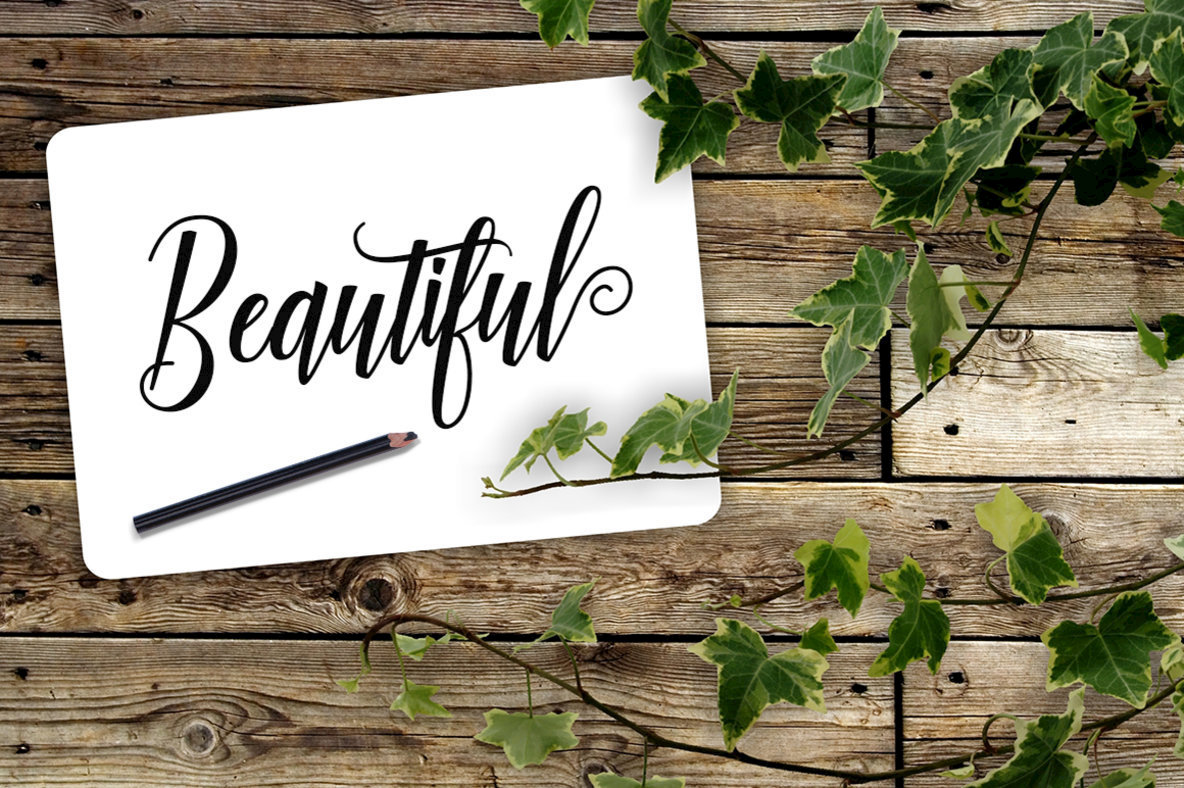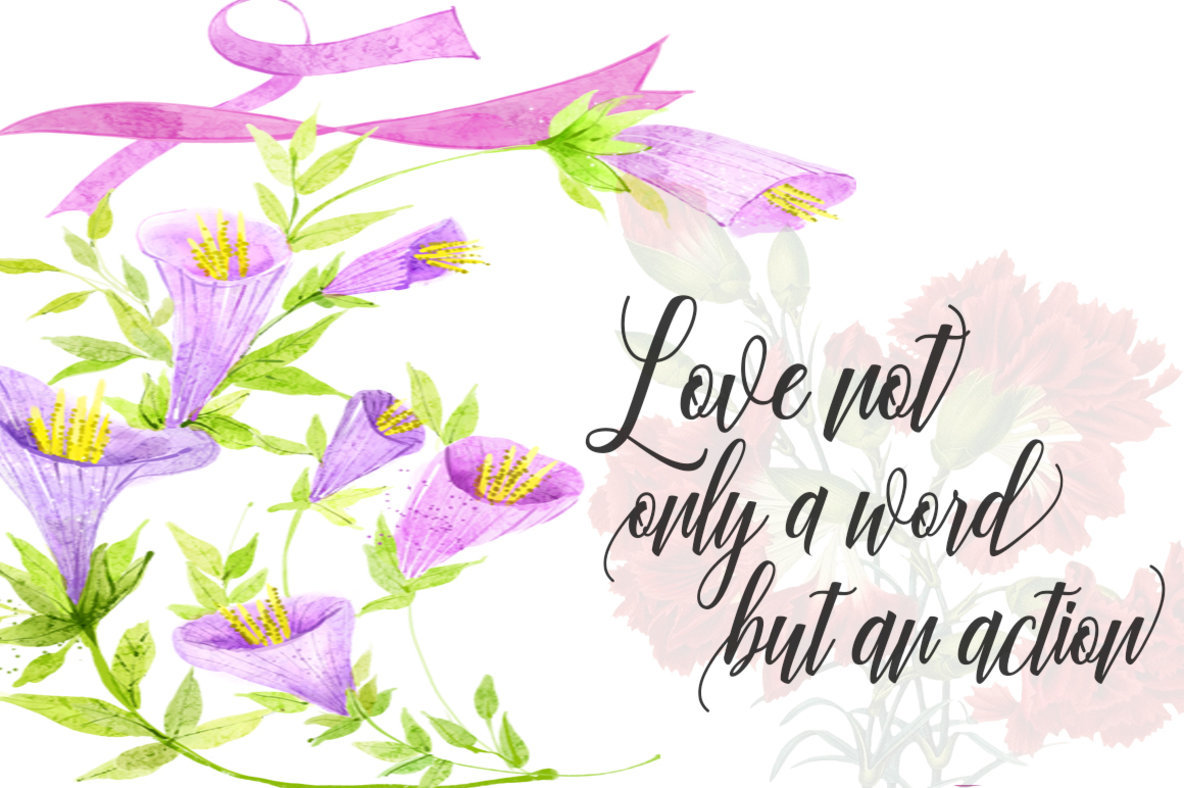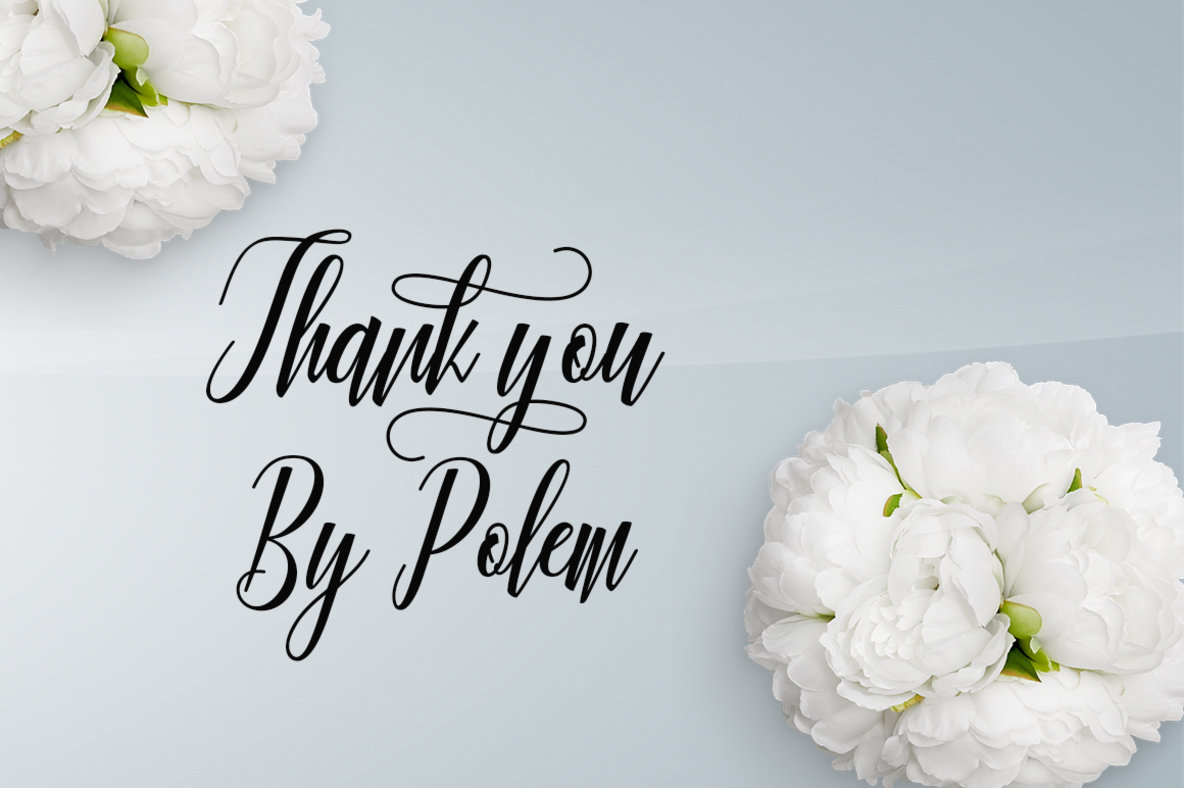
Truelike Font
Truelike
The Truelike Script font, a connecting script designed by Muhammad Nur, exudes elegance and style. Ideal for fashion and e-commerce brands, this font brings a chic and sophisticated flair to your projects. Perfectly suited for high-end logotypes and magazine headlines, Truelike Script also excels in greeting cards, invitations, and posters. It seamlessly enhances ads and web content, offering a versatile range for any business aiming for a classy appearance.Truelike Script: Capture Elegance in Typography